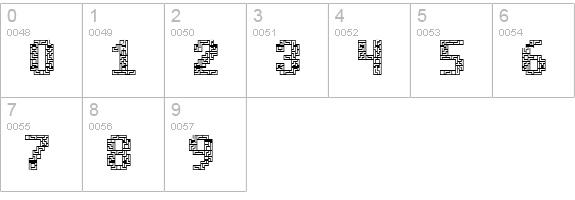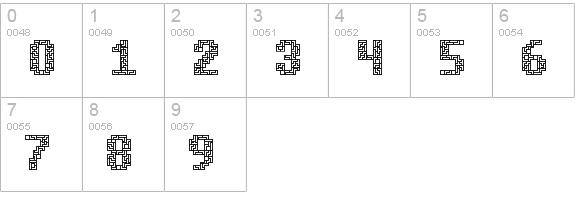
Tetricide (BRK) Font Details
Tetricide (BRK) font is a stunning display typeface that will captivate any audience with its bold and geometric design. With sharp edges and clean lines, this font exudes a sense of modernity and sophistication. The unique characteristics of Tetricide (BRK) make it perfect for a wide range of design projects, from logos and branding to headlines and posters. Its versatile nature allows it to effortlessly adapt to any creative vision, adding a touch of elegance and professionalism to any design. What sets Tetricide (BRK) font apart is not just its striking aesthetics, but also its accessibility. This remarkable font is available to download for free at FontsMarket.com, making it easily accessible to designers, artists, and creatives around the world. Whether you're a seasoned professional or just starting out, Tetricide (BRK) font provides you with the tools to bring your ideas to life without breaking the bank. With Tetricide (BRK) font, you'll have the freedom to explore your creativity and experiment with different styles and layouts. Its clean and legible characters ensure that every word and message is delivered with clarity and impact. Whether you're designing a sleek corporate logo or a trendy social media graphic, Tetricide (BRK) font will make your designs stand out from the crowd. So why wait? Download Tetricide (BRK) font for free at FontsMarket.com and unleash your creative potential. With its stylish and contemporary design, this font is guaranteed to elevate your design projects to new heights. Don't miss out on the opportunity to enhance your work with this incredible font – get Tetricide (BRK) today and let your imagination run wild.